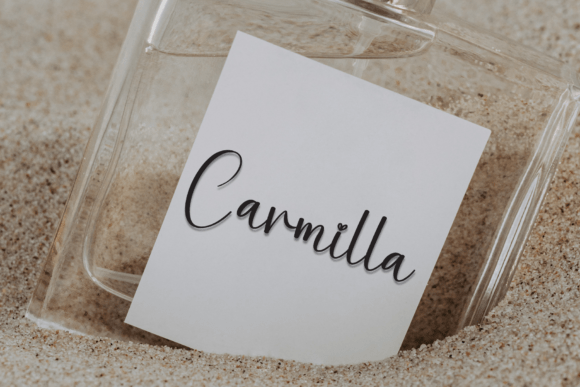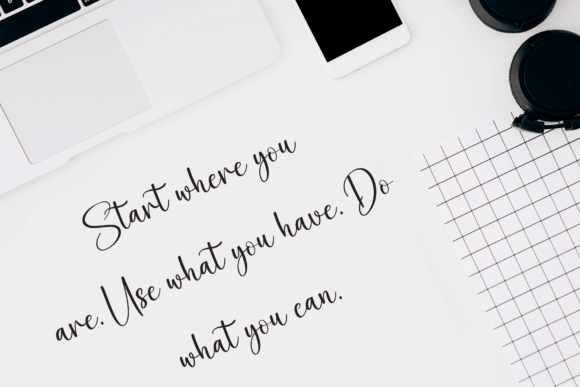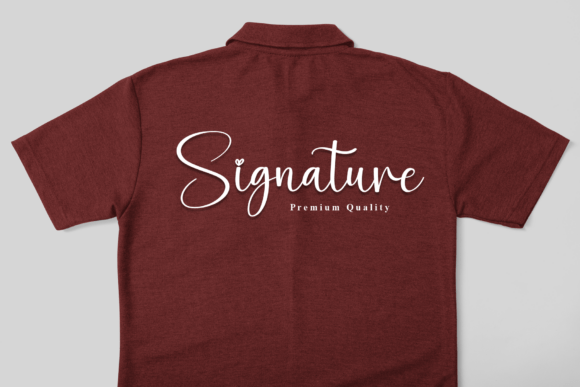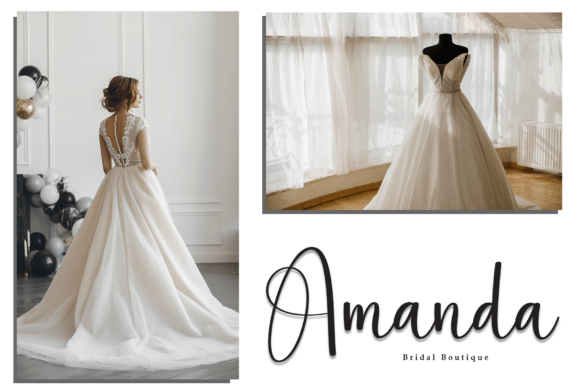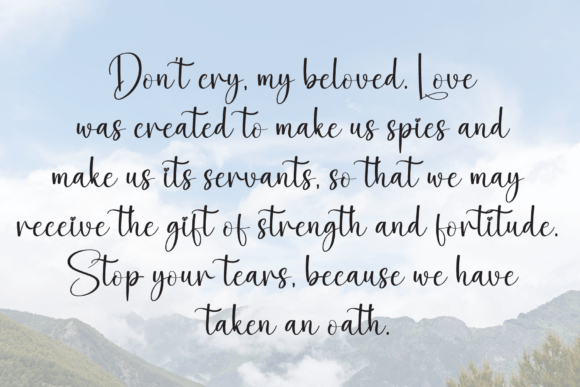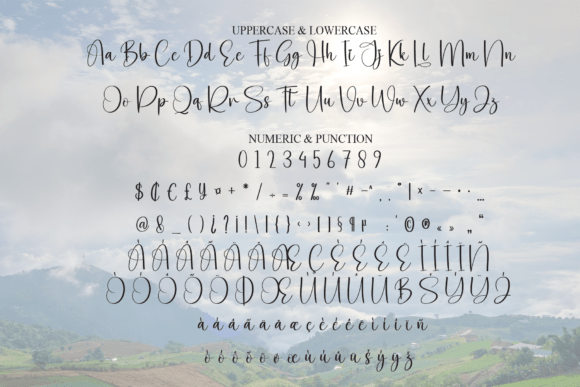
Introducing Daylight Font: Elevate Your Designs with Elegance and Charm
In the world of typography, a font can make or break a design. For those seeking a stylish and sophisticated touch, look no further than the Daylight Font. This beautiful handwritten script font is designed to bring a sense of elegance and charm to any project, making it perfect for designers and crafters alike.
The Characteristics of Daylight Font
Daylight Font boasts fluid strokes and a natural flow, creating a captivating and refined look that’s sure to impress. Its unique characteristics include:
- Fluid Strokes: The font’s smooth, connected letters create a sense of movement and fluidity, adding a touch of sophistication to any design.
- Natural Flow: The font’s natural flow and rhythm make it easy to read and visually appealing, perfect for use in a variety of design applications.
- Elegant and Charming: Daylight Font exudes a sense of elegance and charm, making it perfect for designs that require a personal touch.
Daylight Font is versatile and can be used in a range of design applications, including:
- Invitations: Add a personal touch to wedding invitations, birthday party invites, or any other special occasion with Daylight Font.
- Branding: Use Daylight Font to create a unique and memorable brand identity that stands out from the crowd.
- Social Media: Elevate your social media presence with Daylight Font, perfect for creating eye-catching graphics, quotes, and more.
Why Choose Daylight Font?
With so many fonts available, why choose Daylight Font? Here are just a few reasons:
- Unique and Creative: Daylight Font offers a fresh and creative take on traditional script fonts, making it perfect for designers looking for something new and exciting.
- Easy to Read: Despite its elegant and cursive nature, Daylight Font remains easy to read, making it perfect for use in body text or captions.
- Customizable: With its range of weights and styles, Daylight Font can be tailored to suit any design need, from subtle and understated to bold and dramatic.
Tips for Using Daylight Font
To get the most out of Daylight Font, here are a few tips:
- Pair with a Sans-Serif Font: For a classic and timeless look, pair Daylight Font with a sans-serif font, such as Arial or Helvetica.
- Experiment with Colors: Daylight Font looks stunning in a range of colors, from soft pastels to rich jewel tones. Experiment with different hues to find the perfect fit for your design.
- Use for Headings and Titles: Daylight Font is perfect for use in headings and titles, adding a touch of elegance and sophistication to any design.
In conclusion, Daylight Font is a beautiful and versatile handwritten script font that’s perfect for designers and crafters looking to add a touch of elegance and charm to their designs. With its fluid strokes, natural flow, and captivating look, Daylight Font is sure to become a go-to font in any design collection.